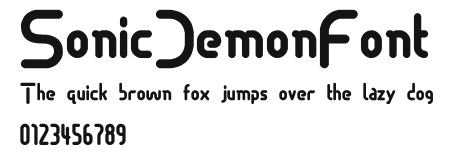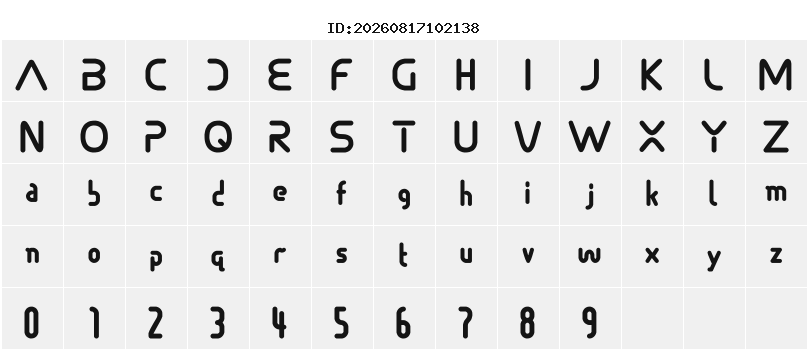
• Font Name: SonicDemonFont
• Full Font Name: SonicDemonFont
About SonicDemonFont.ttf
SonicDemonFont.ttf is a modern, elegant sans-serif font designed for ultimate readability and visual harmony. Perfect for branding, headlines, web design, and print materials.